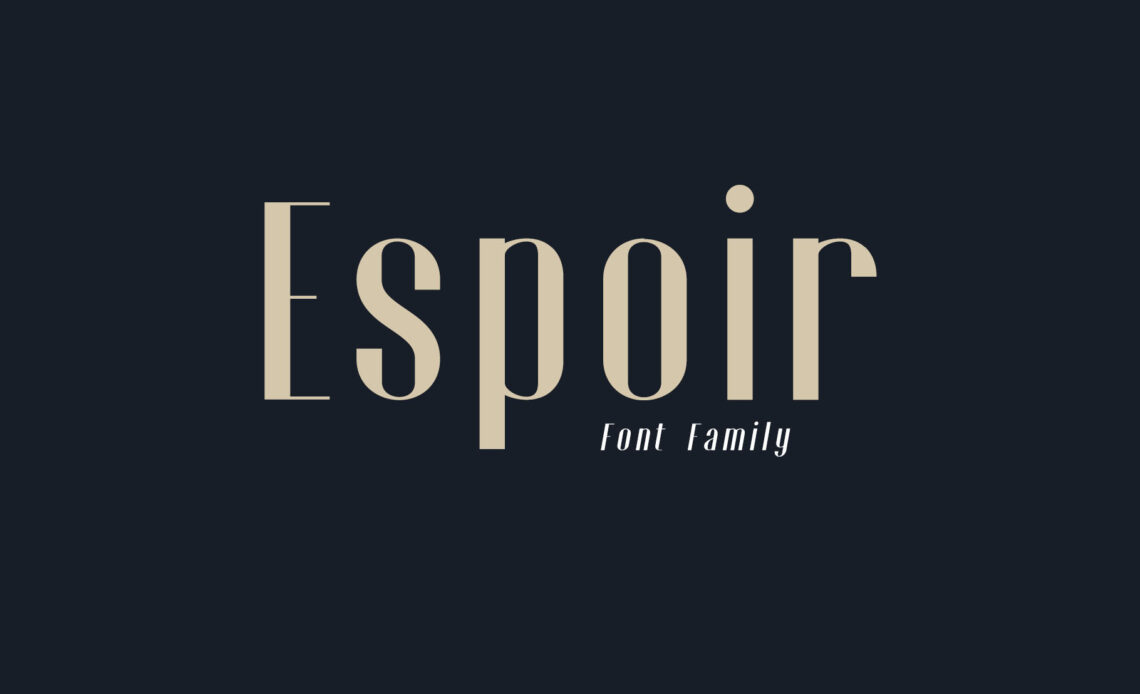
Espoir Font
Discover the captivating allure of Espoir Font, a masterpiece crafted by the visionary Wahyu Hadi Yuana. This enchanting sans serif typeface draws inspiration from the timeless engraved fonts of the late 19th century, harmoniously blending their intricate beauty with a modern minimalist aesthetic. Espoir's bold yet delicate strokes exude an undeniable charm, inviting you to weave tales of elegance and sophistication into your creative endeavors.
With Espoir's refined presence, your words will command attention, leaving a lasting impression on every reader. Its graceful curves and precise angles dance across the page, creating a visual symphony that captivates the senses. Whether you seek to craft captivating headlines, alluring logos, or enchanting invitations, Espoir empowers you to express your vision with unparalleled flair.
But Espoir is more than just a font; it's a gateway to artistic expression, a catalyst for inspiring your most imaginative ideas. Its versatility extends far beyond the realm of formal correspondence, inviting you to explore a world of boundless creativity. From whimsical posters that spark joy to enchanting branding that exudes sophistication, Espoir empowers you to unleash your inner artist.
Immerse yourself in the exquisite world of Espoir Font, where elegance and enchantment intertwine to create a captivating masterpiece. Allow its allure to guide your creative journey, transforming your words into works of art that resonate with timeless beauty and undeniable charm.